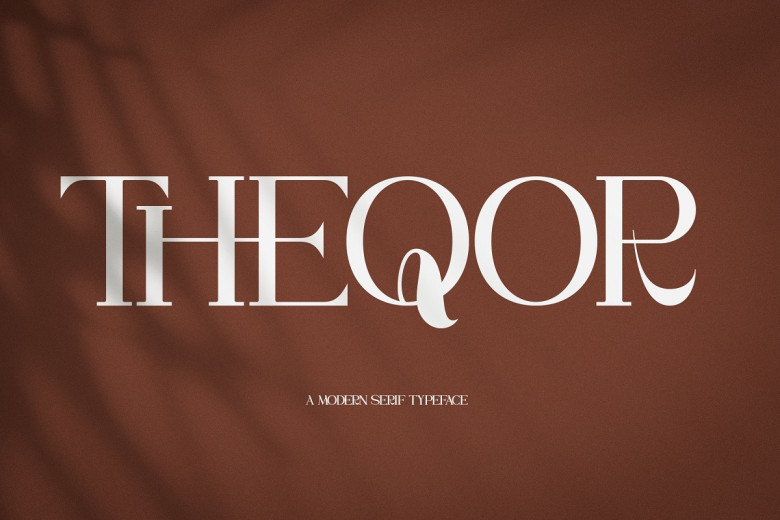
Theqor Font
Theqor is a stunning serif style font. Customizable for various design projects including logos, editorial design heads, branding apparel clothing packaging titles advertisements t-shirts postcards etc it will add beauty and depth to many projects.
Theqor Serif Font